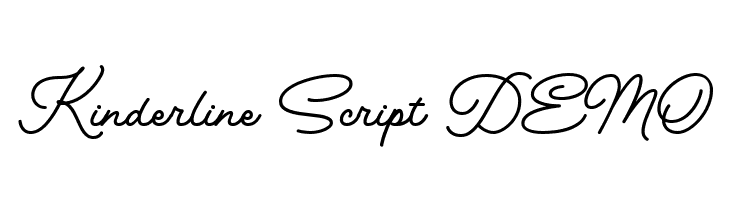
A playful and energetic script font with fluid, connected letterforms.
A graceful script font with fluid, connected strokes and a sophisticated style.